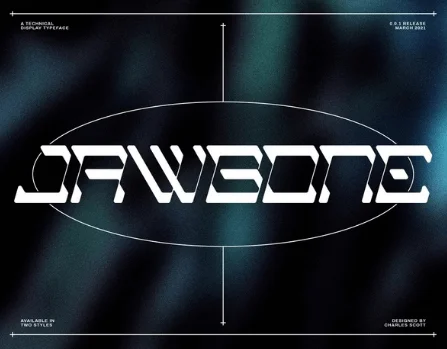
Jawbone Font
Jawbone Font is perfect for a wide range of design projects including bold branding, edgy logos, rock band posters, urban streetwear designs, gaming graphics, tattoo designs, album covers, and impactful advertising campaigns. Its strong character makes it an excellent choice for projects that require a powerful and memorable typographic statement.
What makes Jawbone Font exciting is its raw, unapologetic attitude that commands attention and delivers instant impact. The font features bold, aggressive letterforms with unique structural elements that create a sense of strength and rebellion. Its distinctive personality makes it perfect for brands and projects that want to project confidence, energy, and an unmistakable edge.
Jawbone Font comes in multiple font families including Regular, Bold, Condensed, Outline, Rough, and various textured variations. These diverse options provide designers with complete creative freedom to experiment with different moods and intensities while maintaining a cohesive visual identity.
When your project demands a typeface that refuses to be ignored, Jawbone Font Free Download delivers the bold presence and distinctive character you need. The font's powerful aesthetic works exceptionally well for headline applications, display typography, and any design that requires immediate visual impact and strong personality to connect with adventurous audiences.